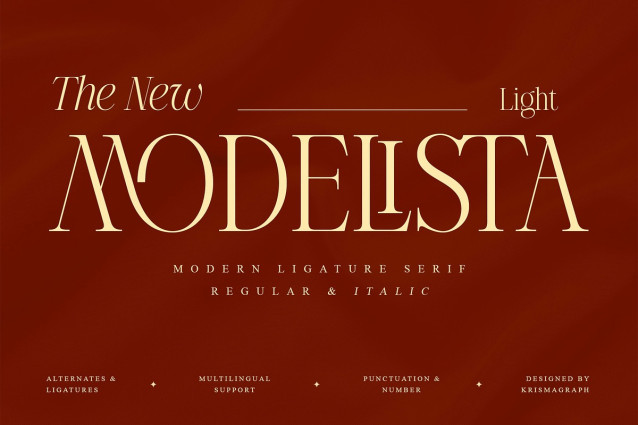
Modelista Light Font
Modelista Light Font is a multipurpose font that is perfect for any project, with high-contrast glyphs, giving it an elegant, feminine and masculine, modern, and easy-to-read quality. It is equipped with a unique ligature to give your designs a new color. Great in layout design for quotes or body copy, best used as a display for headings, editorial, logos, branding, magazines, product packaging, invitations, quotes, blogs, and more. This font is easy to use and has OpenType features.
| Designer Name: | Krismagraph |